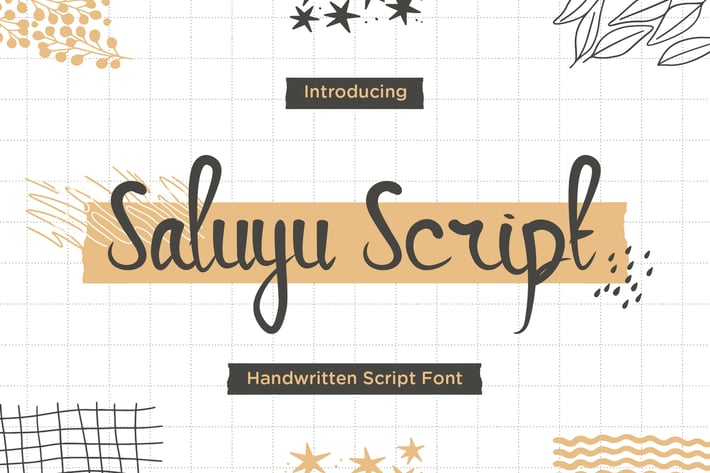
Saluyu Script - Handwritten Font
Saluyu is a handwritten script font. It has an authentic modern calligraphy look making it perfect for branding and digital designs. Use this font for logos, wedding decor, invitations, home decor, websites, blogs, Instagram, business cards, branding, social media, and more!
– Lowercase
– Ligature
– Alternate